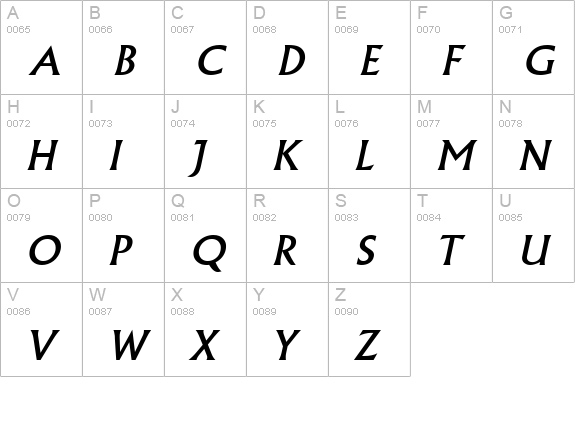
Flair Italic is a distinctive, italic variant in the Flair typeface family \xE2\x80\x94 well suited to design and typography projects.
Flair Italic font is a stunning typeface that exudes elegance and sophistication. With its graceful curves and stylish flair, this font is perfect for adding a touch of class to any project. Whether you're designing wedding invitations, creating a logo, or crafting a marketing campaign, Flair Italic font will elevate your work to the next level. The best part? Flair Italic font is available for free download at FontsMarket.com. That's right, you can access this exquisite font without spending a dime. So why wait? Take your designs to the next level with Flair Italic font today!